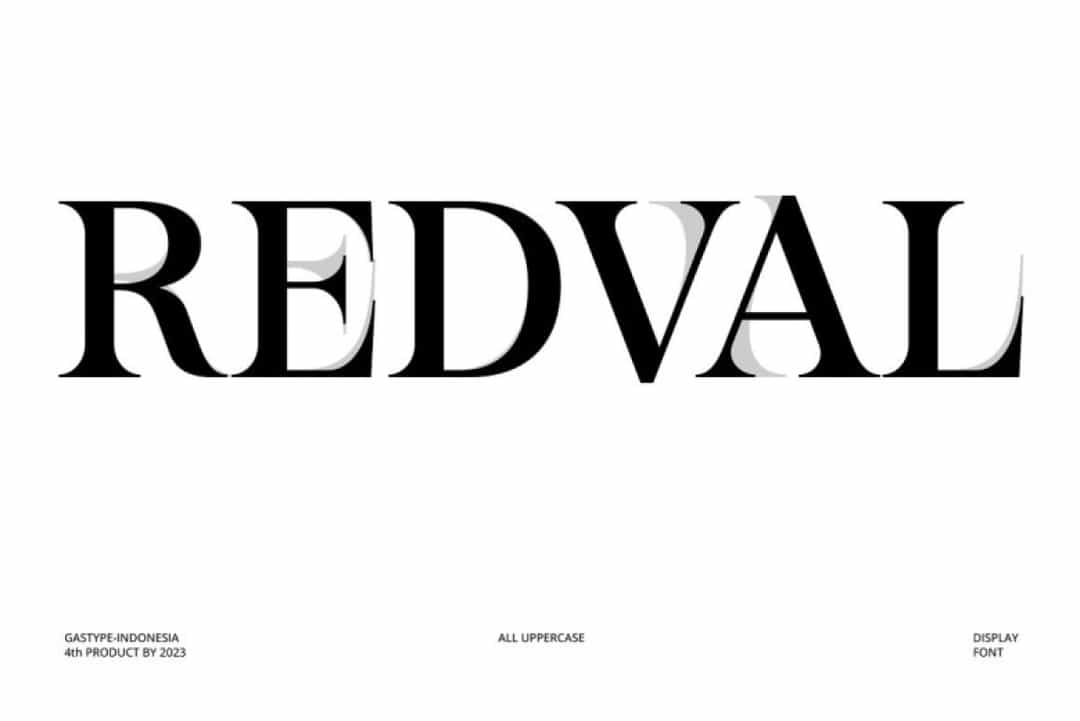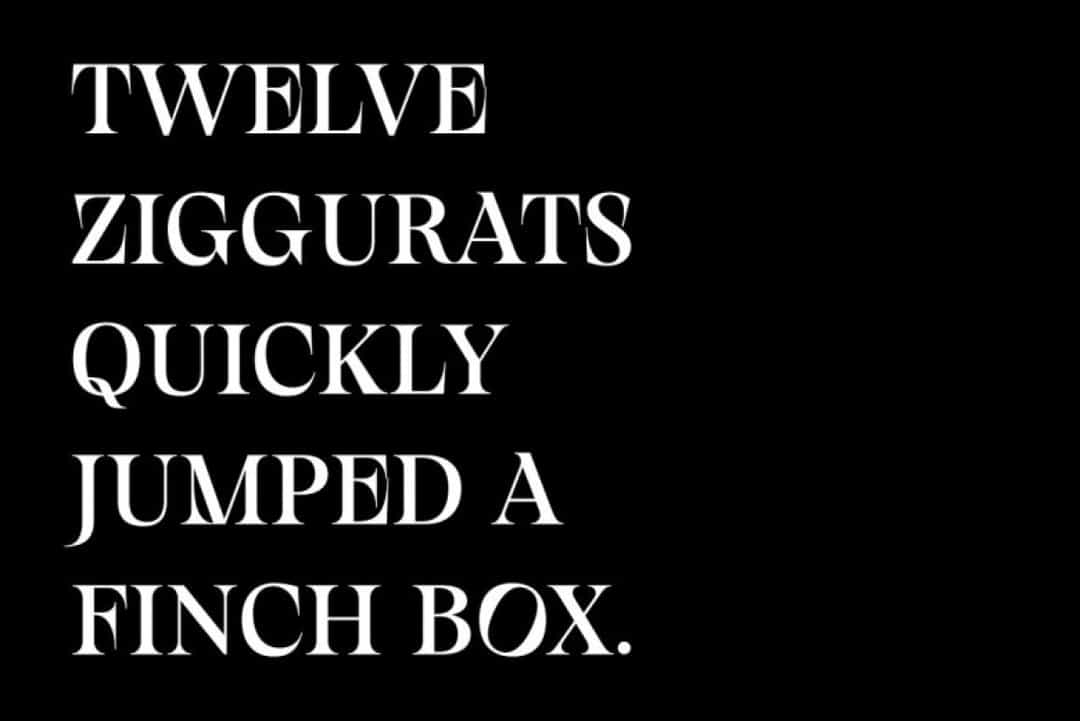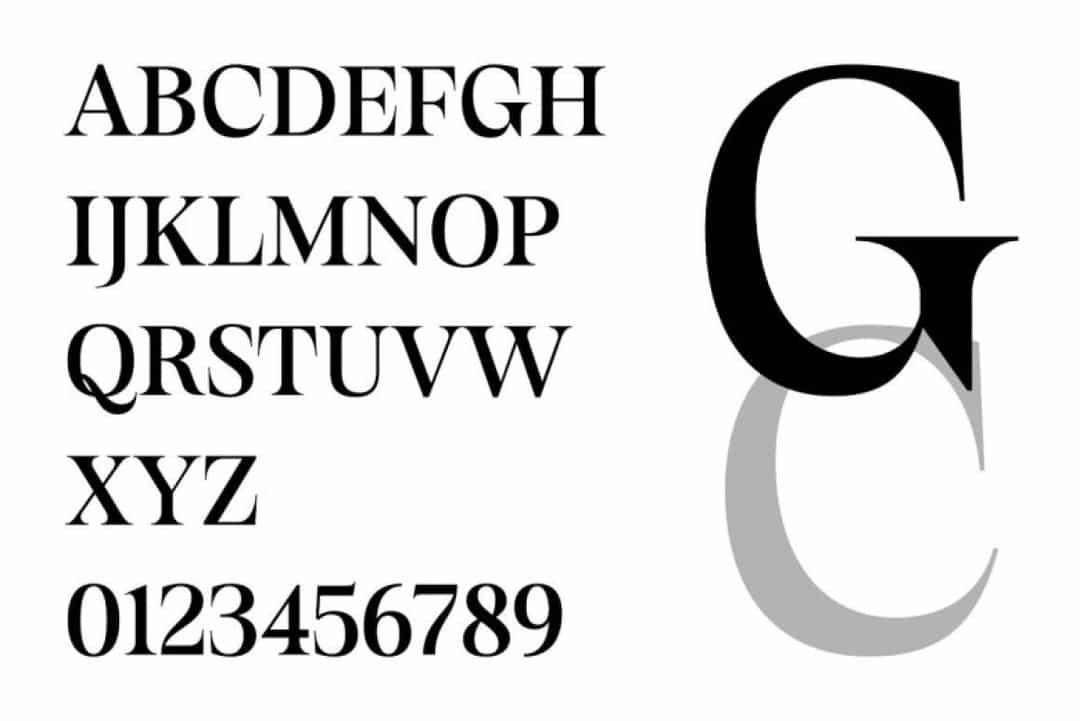
Redval Font is an old-fashioned serif typeface ideal for bold logos, quotes, or branding applications. Boasting its distinctive serifs as well as sophisticated letterforms, Redval adds elegance to any design while its uppercase letters, symbols, numbers, and punctuation ensure effective communication.